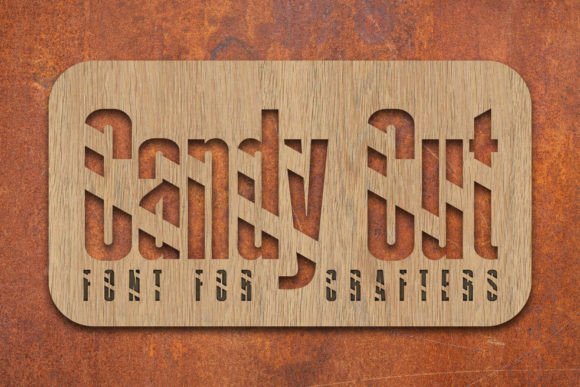
Crafting Perfection with Candy Cut Font
Have you ever stared at a blank sheet of paper, feeling the excitement of a new project, but struggling to bring it to life? The blank page stares back, taunting you with its emptiness, until suddenly, inspiration strikes. You grab your scissors, or in this case, your laser cutter, and the creative process begins.
For designers and crafters, finding the right font can be the key to unlocking a project’s full potential. That’s where Candy Cut Font comes in – a specially designed font that’s been crafted with laser and paper cutting in mind. Its bold, condensed letters are easy to cut out, with smooth edges and clear shapes that make it perfect for a wide range of craft projects, from signs and stencils to cards and more.
• Unique Characteristics: Distinctive, playful, and whimsical design; ideal for use in packaging, advertising, and other creative applications
Candy Cut Font Review
As a designer, I was excited to dive into the world of Candy Cut Font. Here’s my honest review:
• Unique, playful design: Candy Cut Font is a true standout in the world of sans-serif fonts. Its quirky, rounded edges and fun aesthetic make it perfect for adding a touch of whimsy to any design project.
• Customization options: The font comes with a range of customization options, including various weights and styles, making it easy to find the perfect fit for your design needs.
• High-quality vectors: The font’s vector files are crisp and clean, making it easy to resize and manipulate without losing any quality.
• Limited language support: Unfortunately, Candy Cut Font only supports a limited number of languages, which may be a drawback for designers working on international projects.
• Not ideal for formal designs: While Candy Cut Font is perfect for playful, creative projects, it may not be the best choice for formal or professional designs, where a more serious font is preferred.
Overall, I’d say Candy Cut Font is a great addition to any designer’s toolkit. While it may have some limitations, its unique design and customization options make it a standout choice for designers looking to add a touch of fun and whimsy to their projects.
Candy Cut Font is perfect for:
• Creating eye-catching titles and headings.
• Adding a playful touch to your designs.
• Designing kids’ party invitations and decorations.